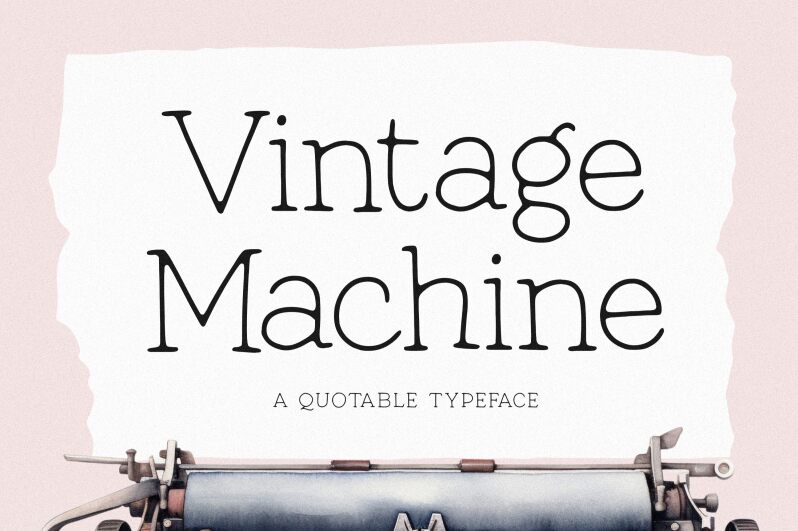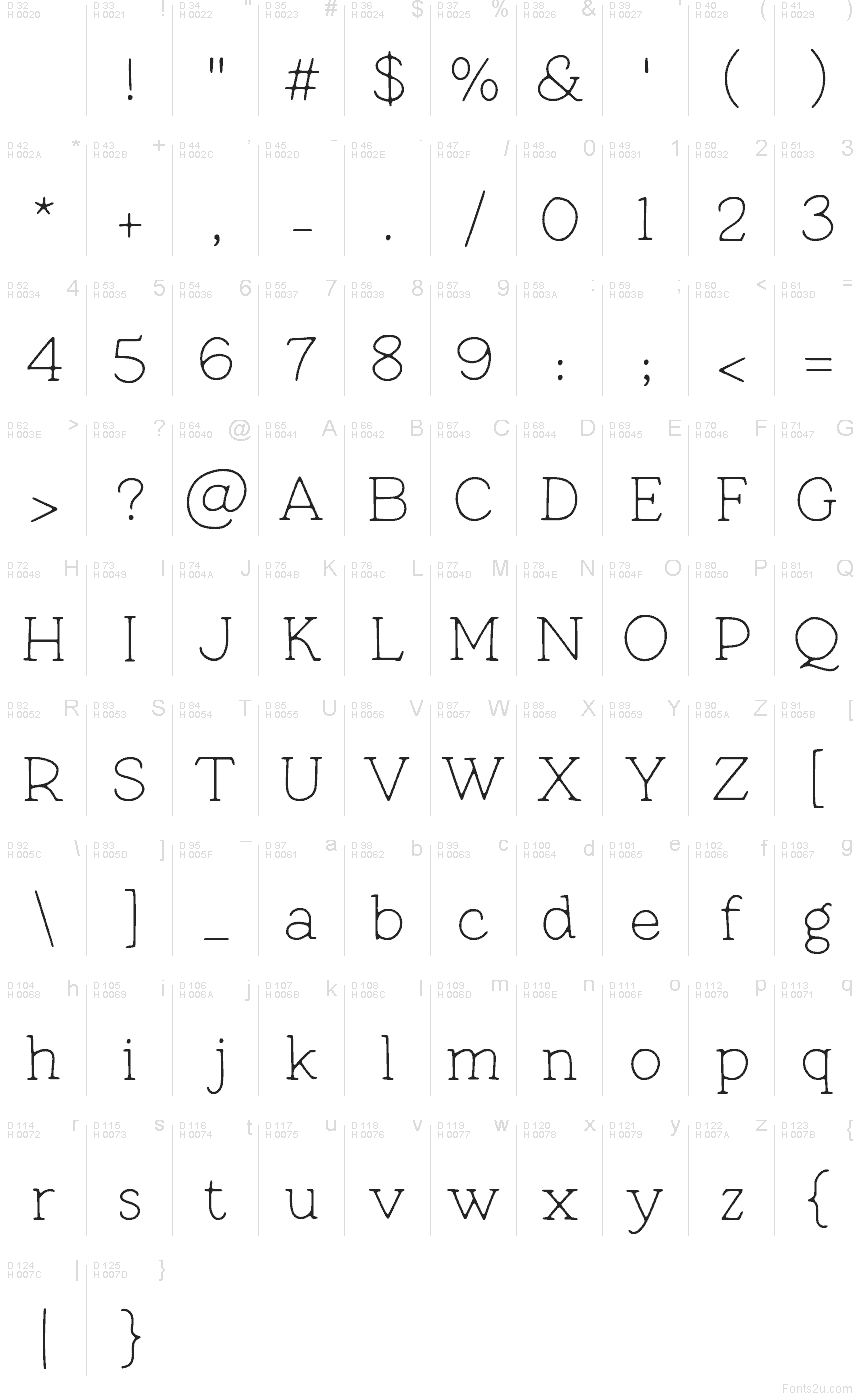
Vintage Machine
Vintage Machine font by Balpirick Studio is a free decorative display serif typeface with a quietly eccentric twist. Its hairline strokes feel like fine wire bent into letters—delicate, a little mechanical, but still warm and hand-touched. The slim, looping forms give headlines a thoughtful, crafted character that feels somewhere between an antique blueprint and a literary first edition.
Using Vintage Machine, your titles and wordmarks gain a subtle, intellectual drama that never feels loud or clumsy. This free font works beautifully for boutique logos, book covers, packaging, café menus, poster quotes, and minimalist website headers. Pair it with a clean geometric sans in smaller text to keep everything readable while letting Vintage Machine handle the elegant, eye-catching moments.